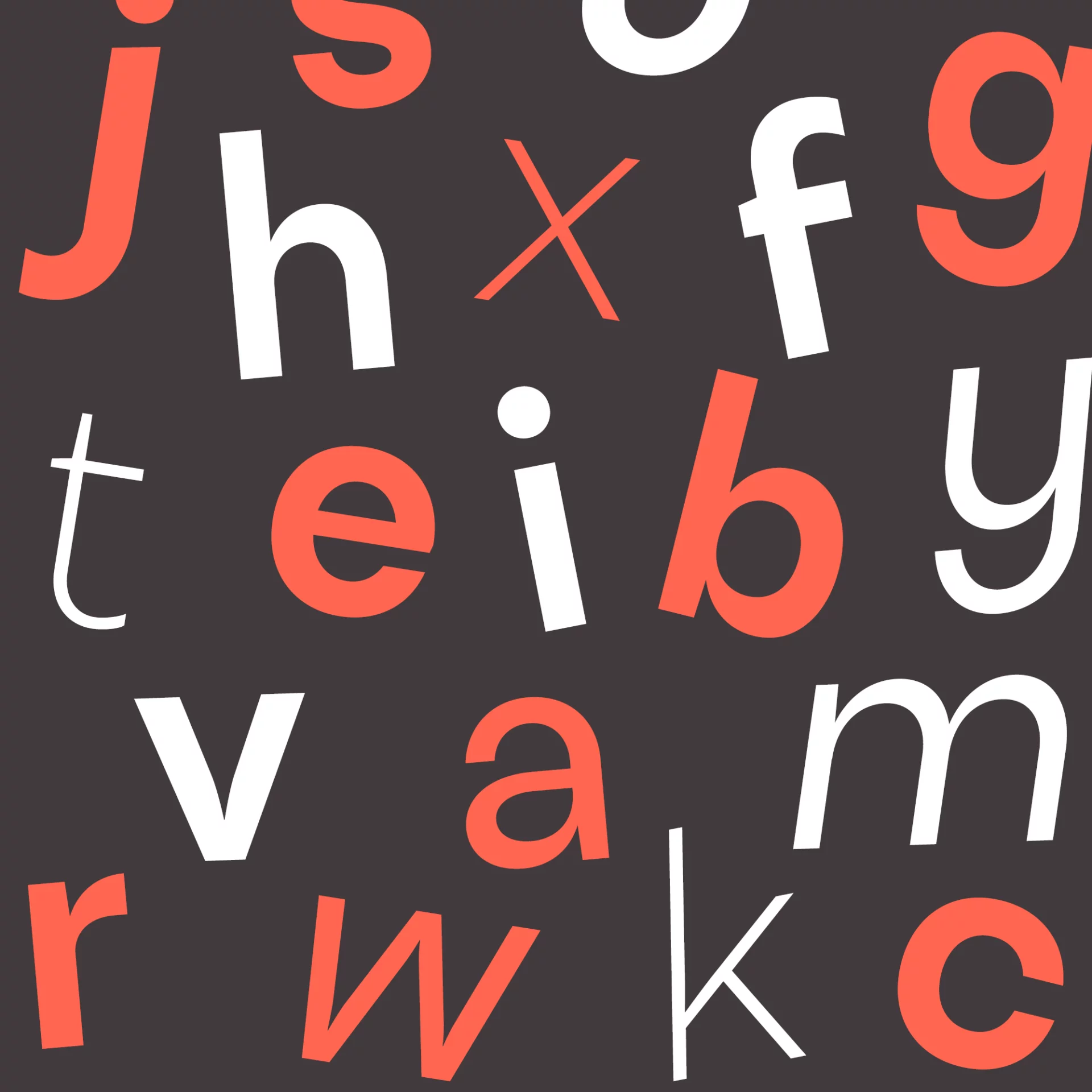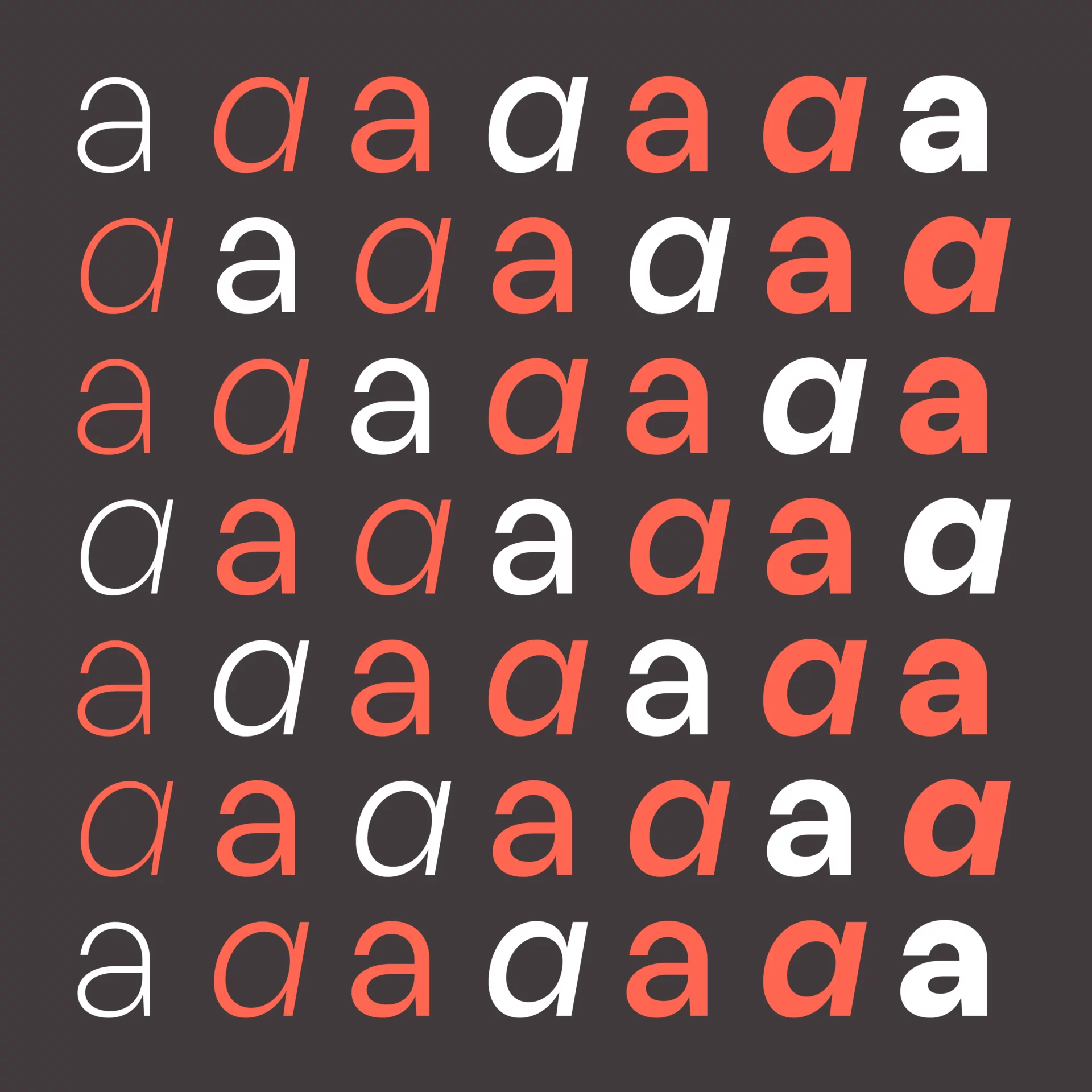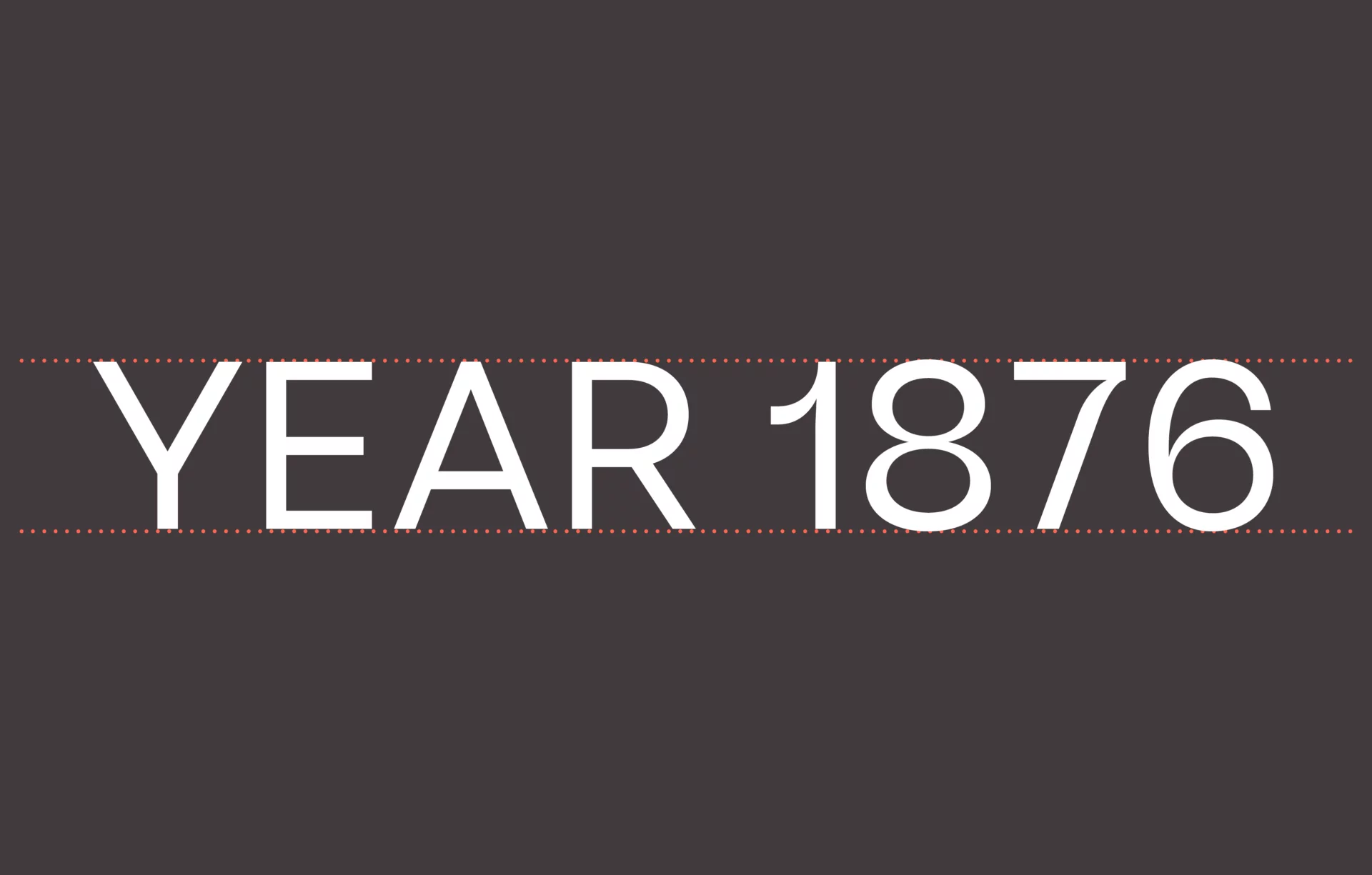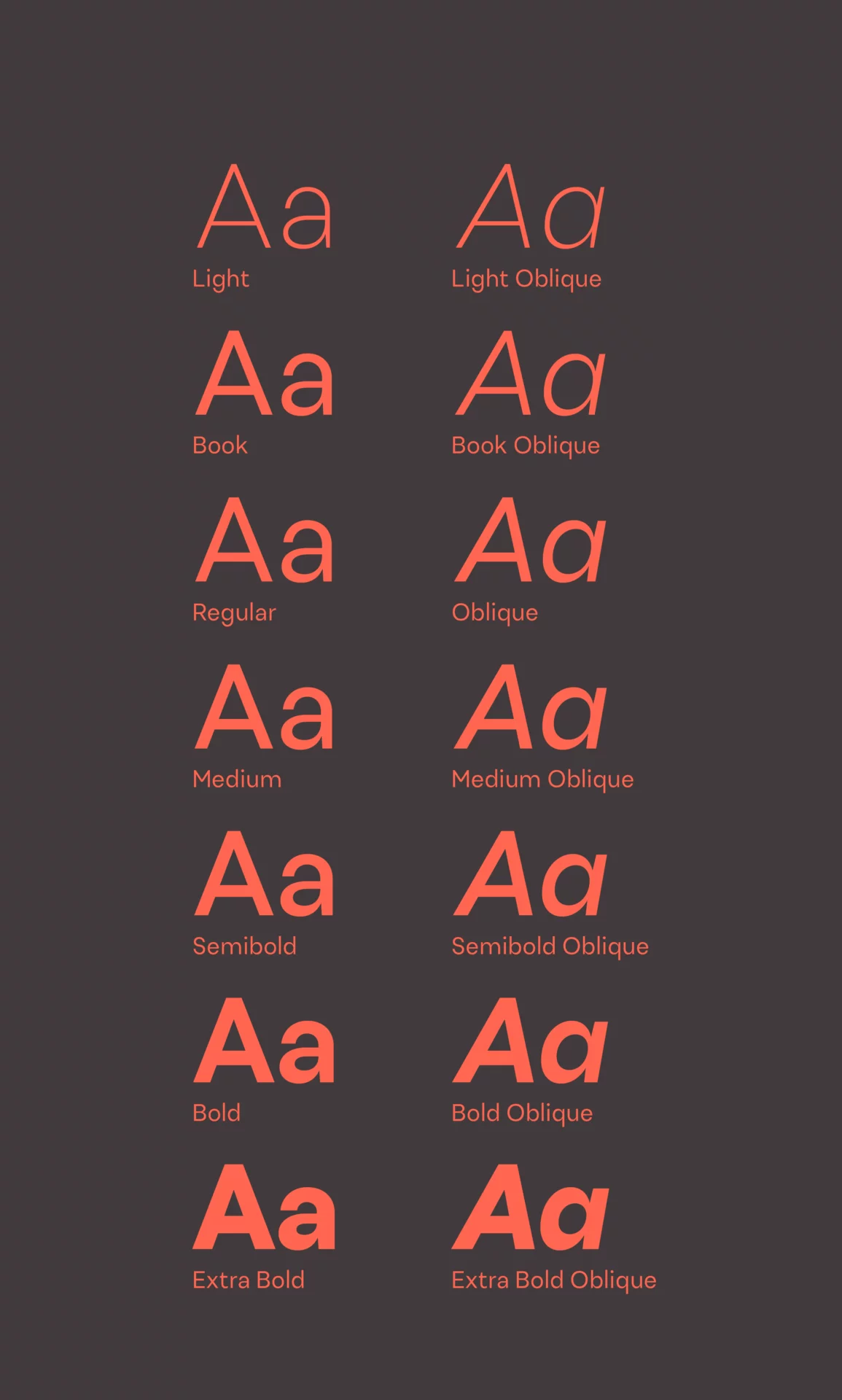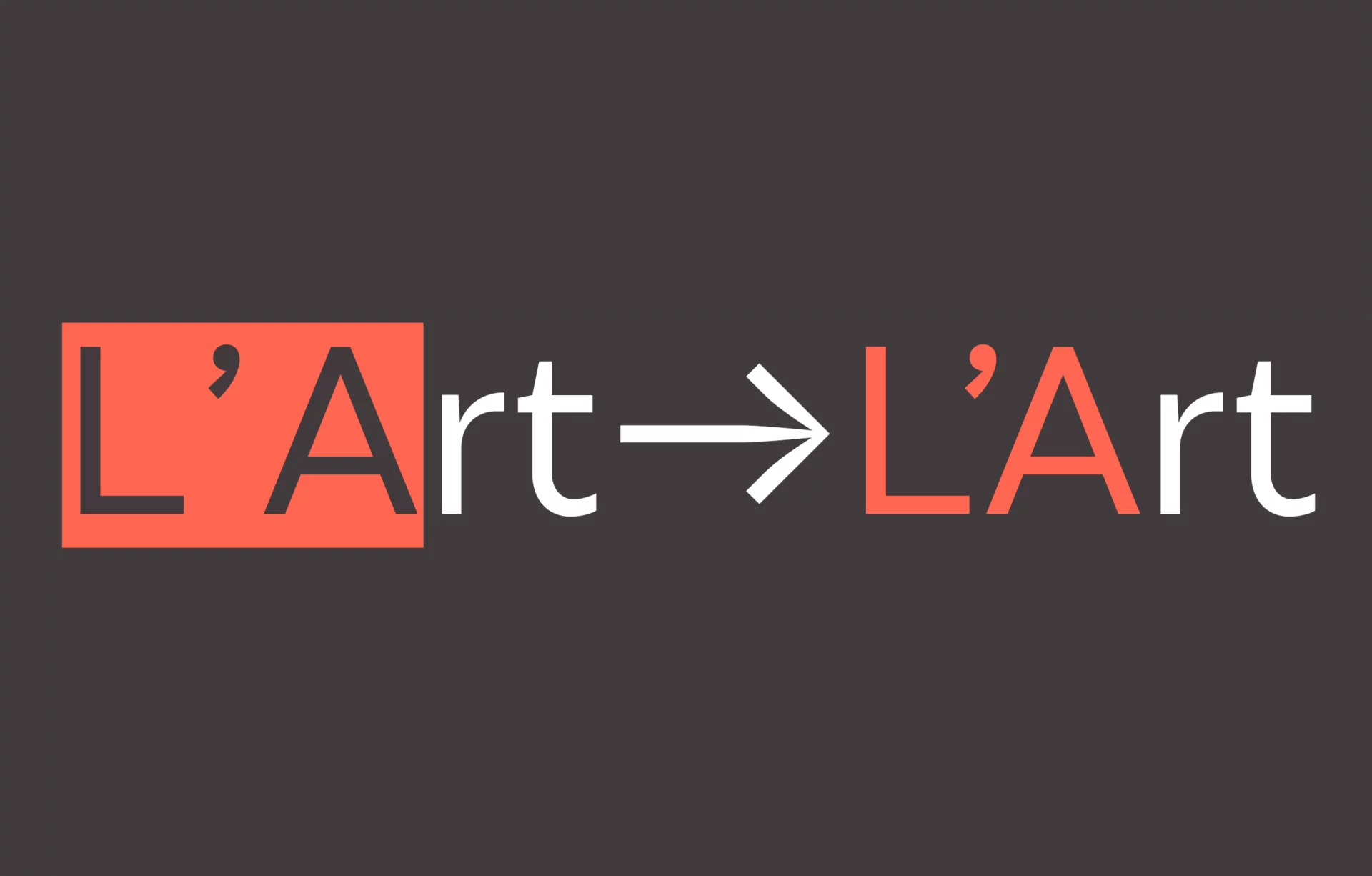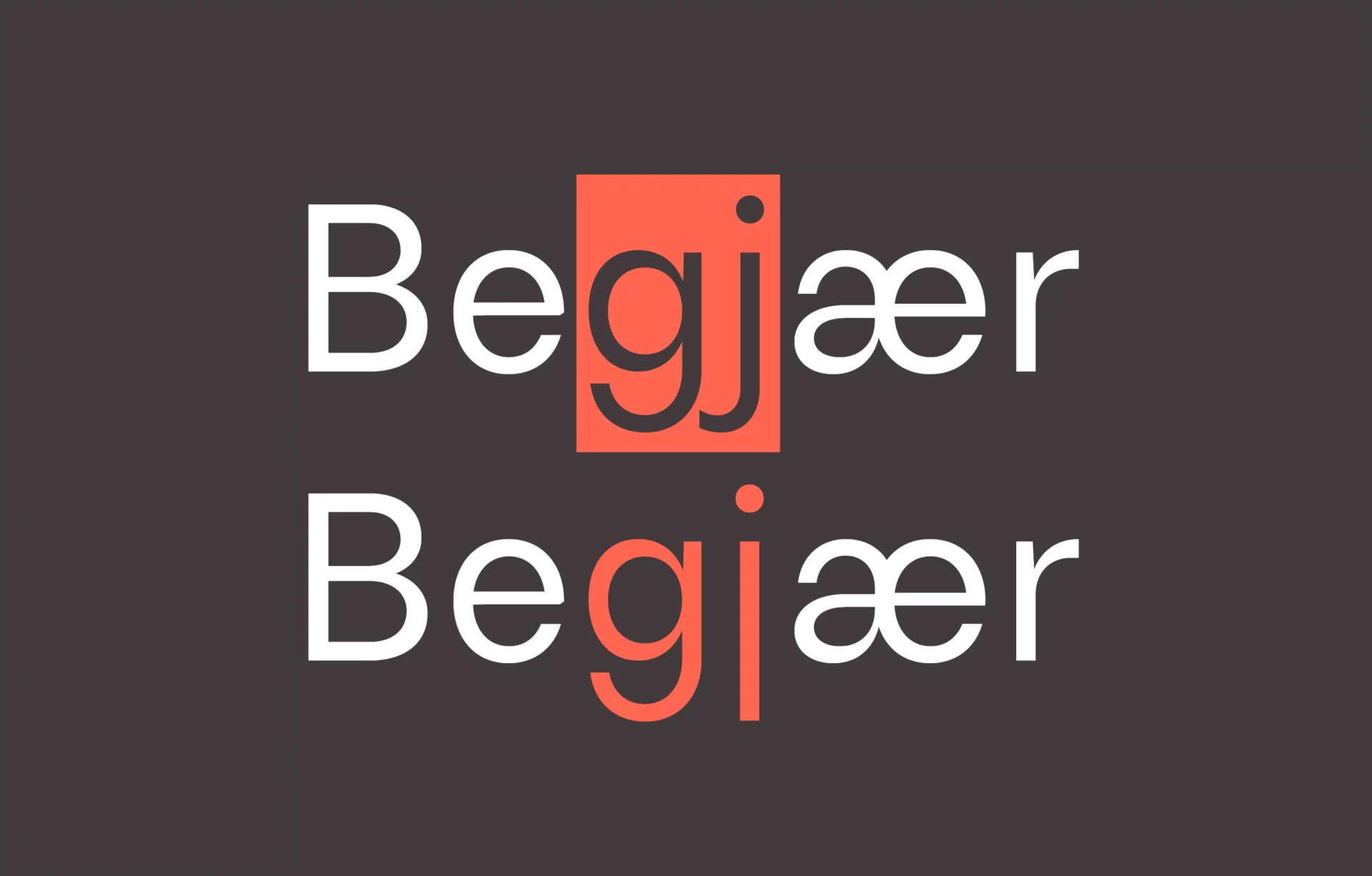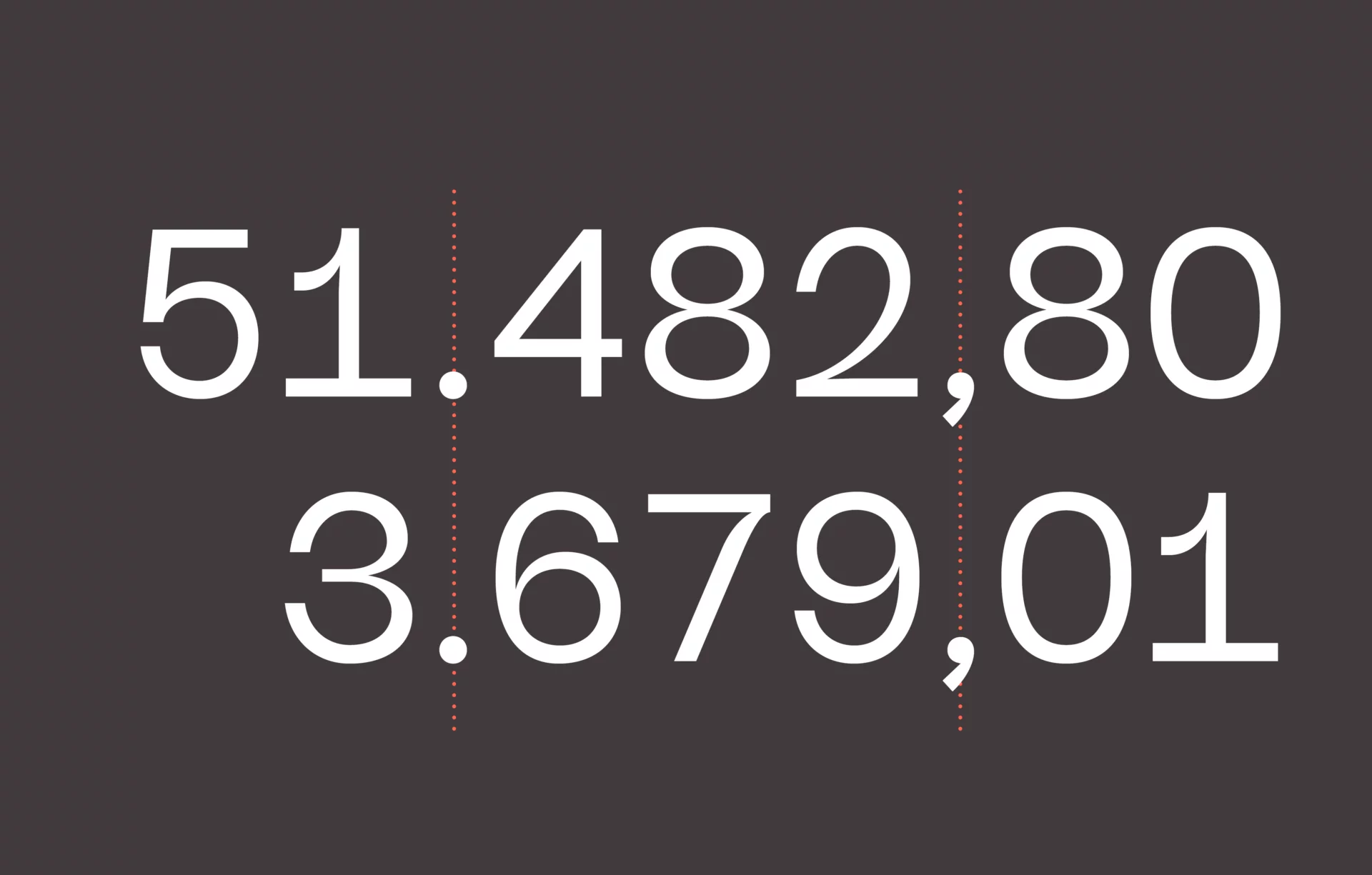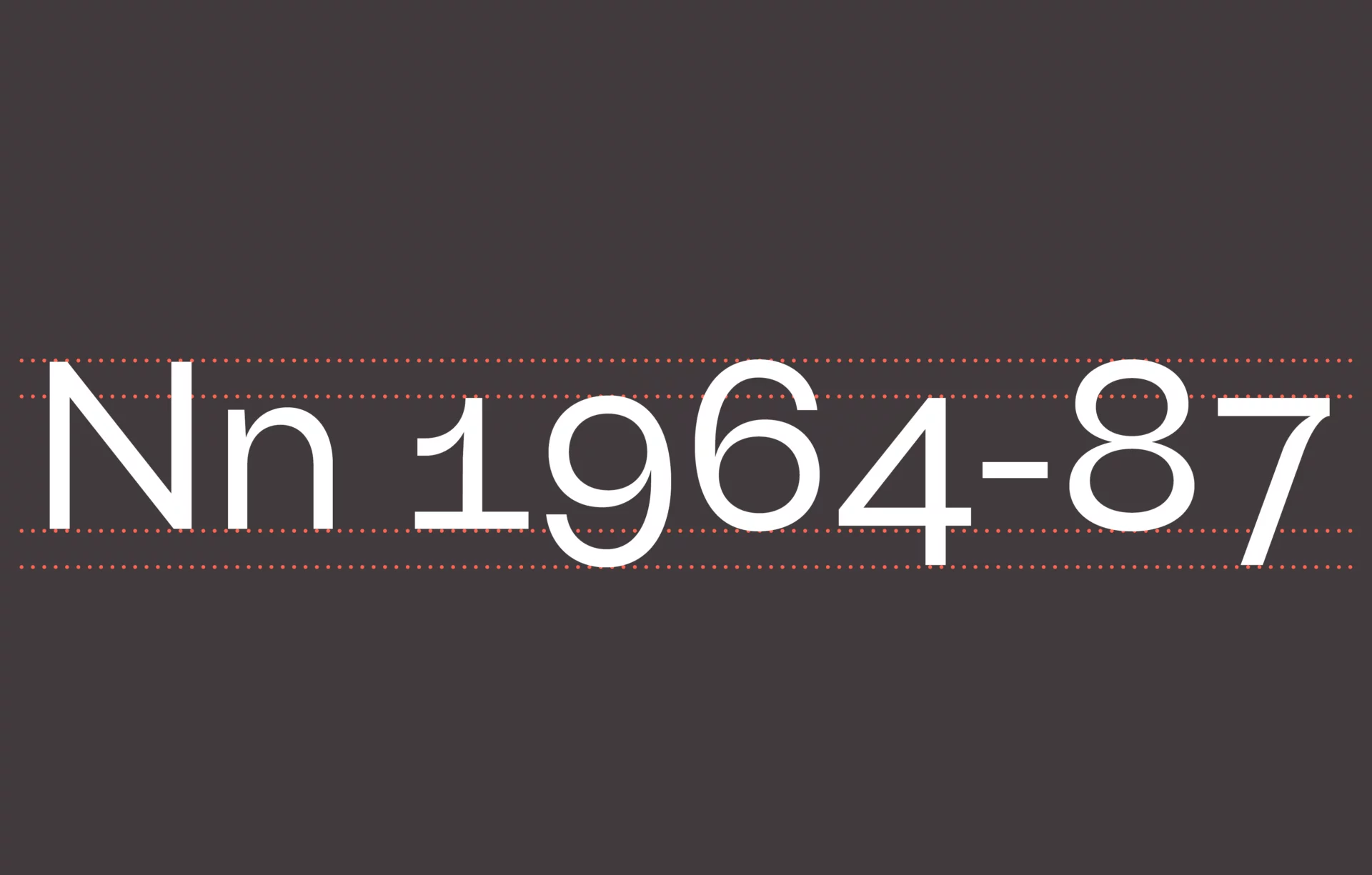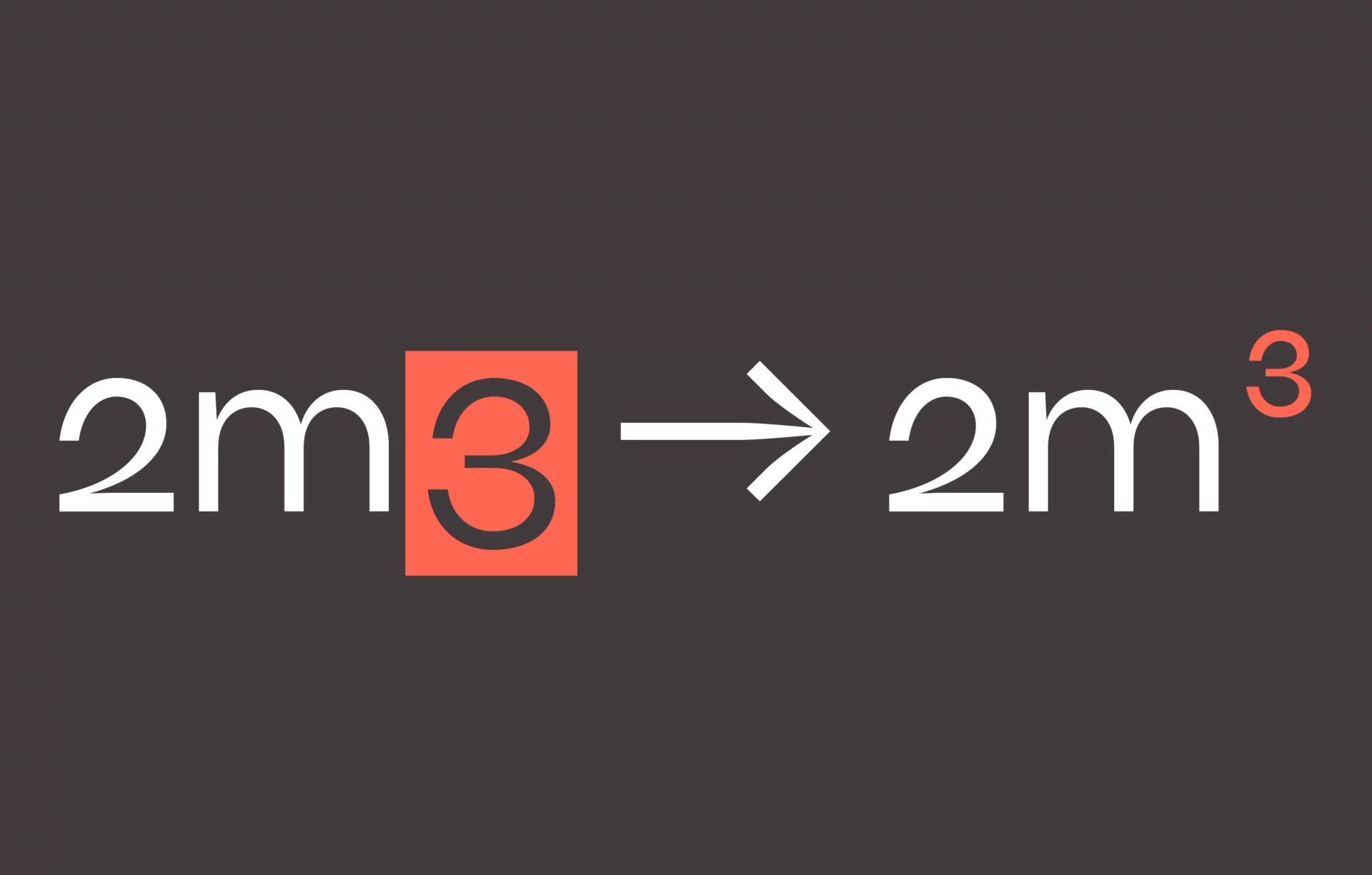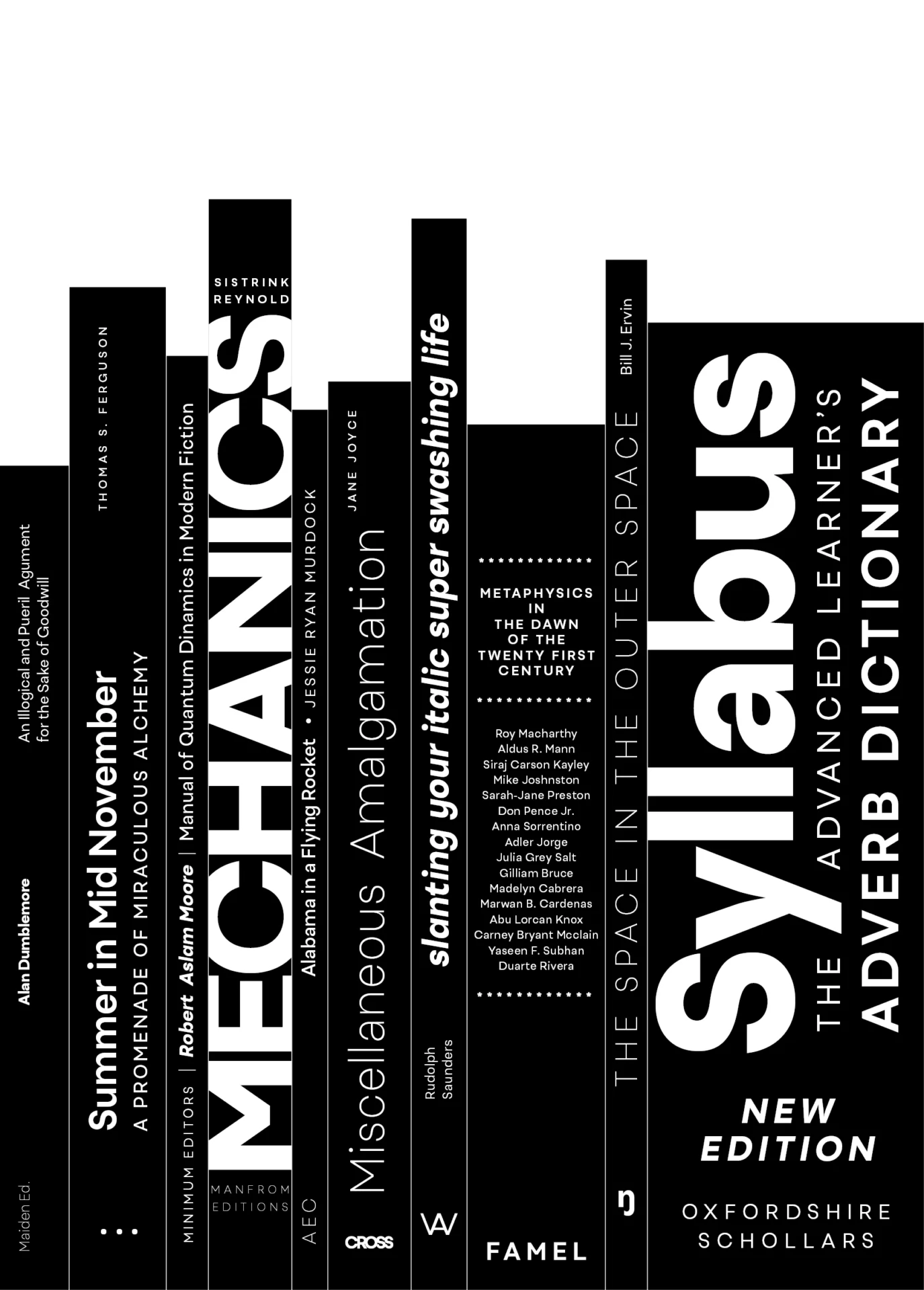
Uivo Typeface
A geometric
grotesque
font family.
A Geometric grotesque hybrid, with a human touch
Gleaning from geometric giants like Futura and grotesque hits such as Frutiger and Helvetica, Uivo is an instant classic.
14 high quality fonts
Highly readable at various sizes
Supports 280+ languages
Versatile
In a variety of styles and weights and an extended glyphset, Uivo is a versatile typeface, ideal for branding, editorial and any project where readability and warmth is needed.
Roman and Oblique Weights